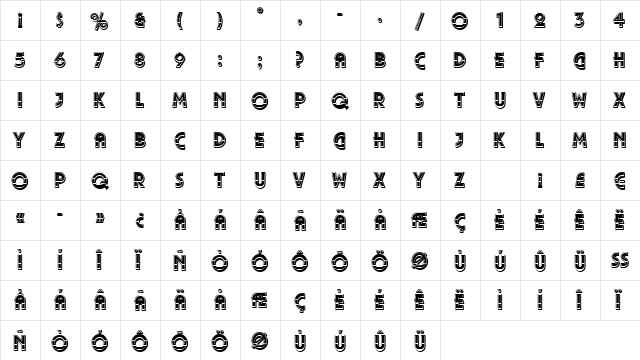
Pizzicato-Decorative Regular
Design Context for Pizzicato-Decorative Typeface
Pizzicato-Decorative is built around its visual character rather than neutral utility — its distinctive forms are designed to make an impression at display sizes.
Font Pairing: Pair with a clean neutral sans-serif for body copy to let Pizzicato-Decorative's character lead without overwhelming the composition.
Pro Tip: Use Pizzicato-Decorative exclusively at display sizes — it was designed to be seen, not read at length. Let a neutral companion handle body copy.